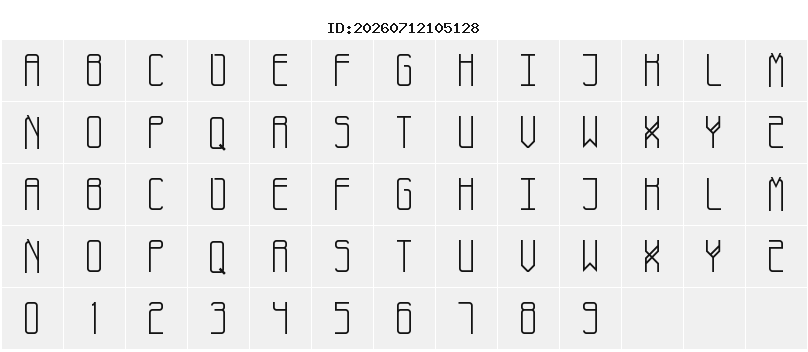
Manaffe-Zero Yunis Preview
• Font Name: Manaffe-Zero Yunis
• Full Font Name: Manaffe-Zero Yunis Regular
• Designer: Esby
• Description: “Manaffe-Zero Yunis” was built with FontStruct “Manaffe-Zero Yunis” is based on “Mannaffe Yunis” by “Esby” (http://fontstruct.com/fontstructors/show/1351811/esby)
About Manaffe-Zero Yunis.ttf
Manaffe-Zero Yunis.ttf is a modern, elegant sans-serif font designed for ultimate readability and visual harmony. Perfect for branding, headlines, web design, and print materials.